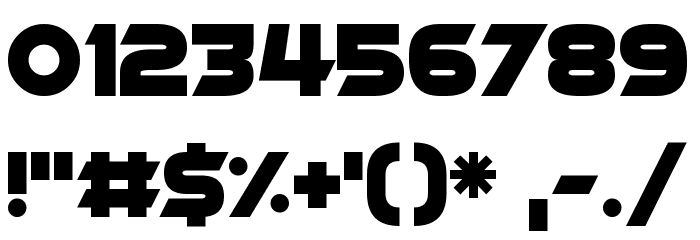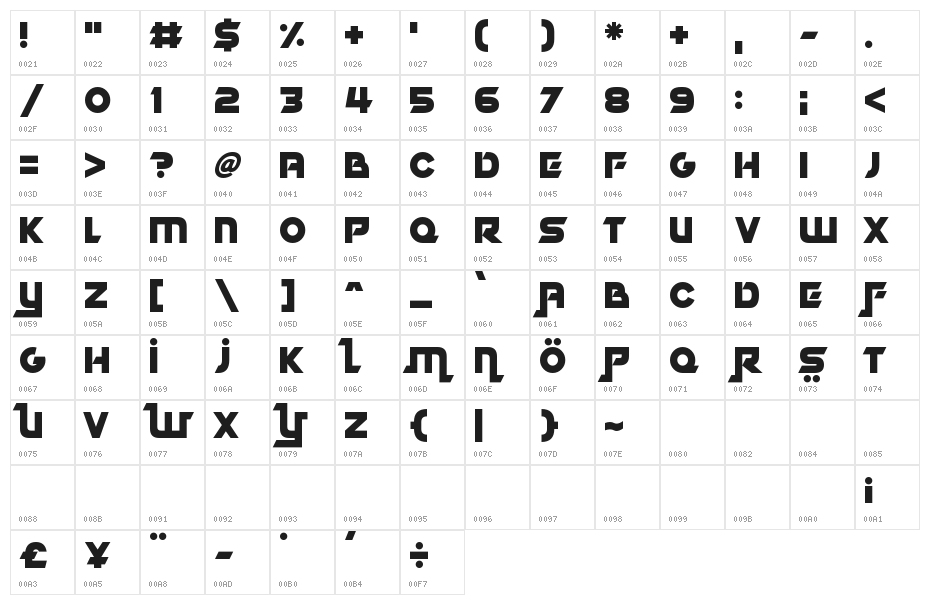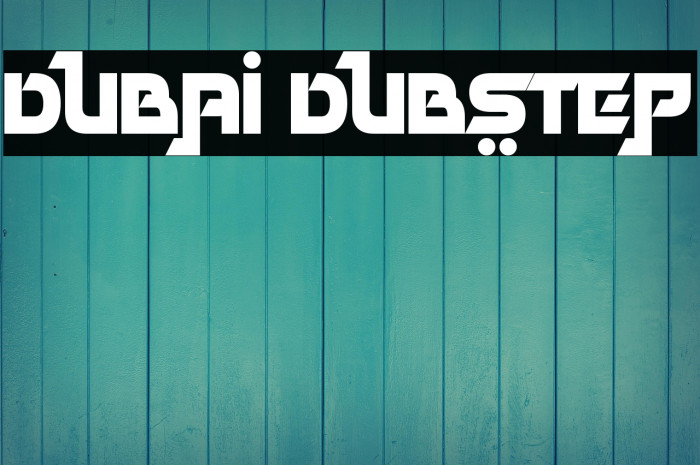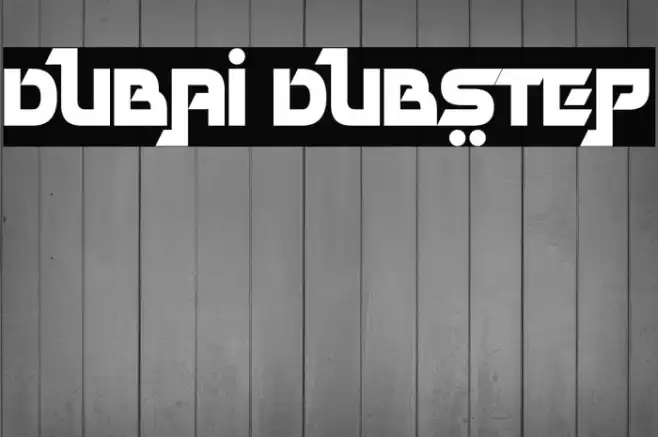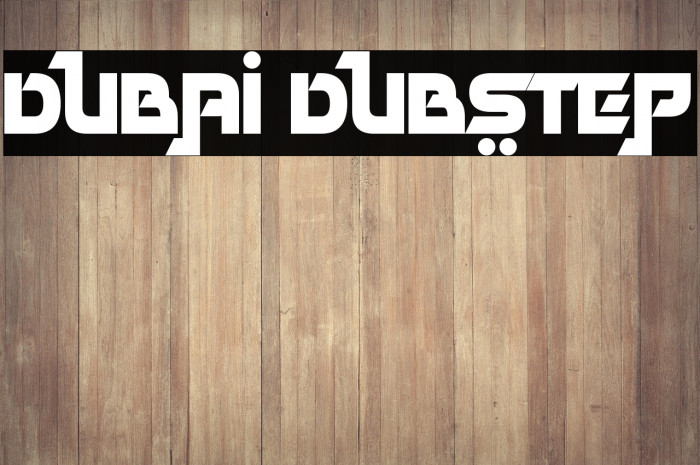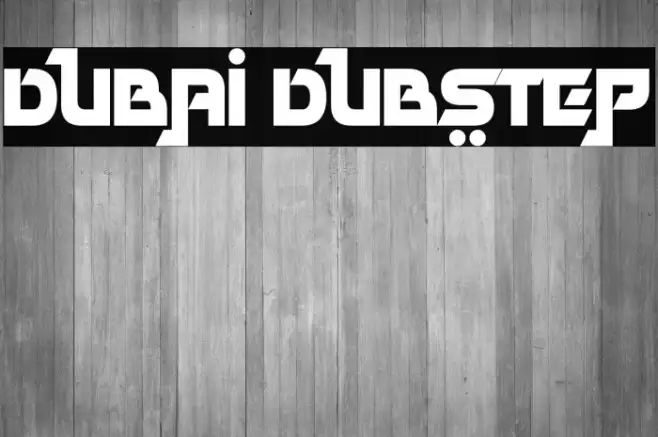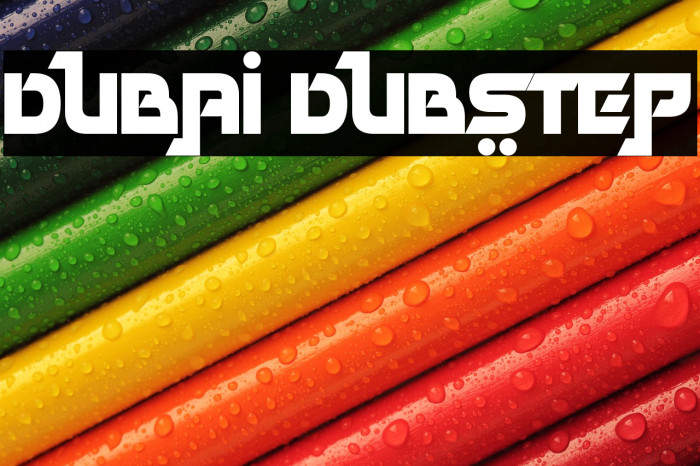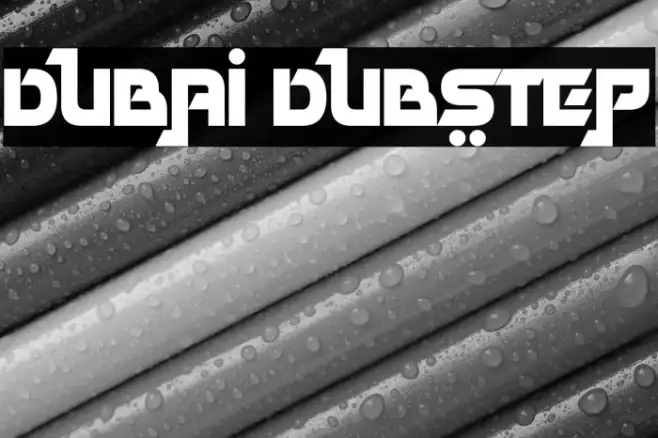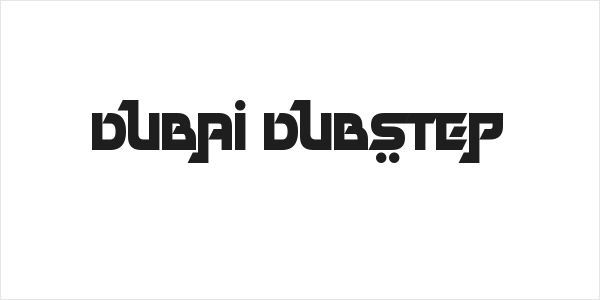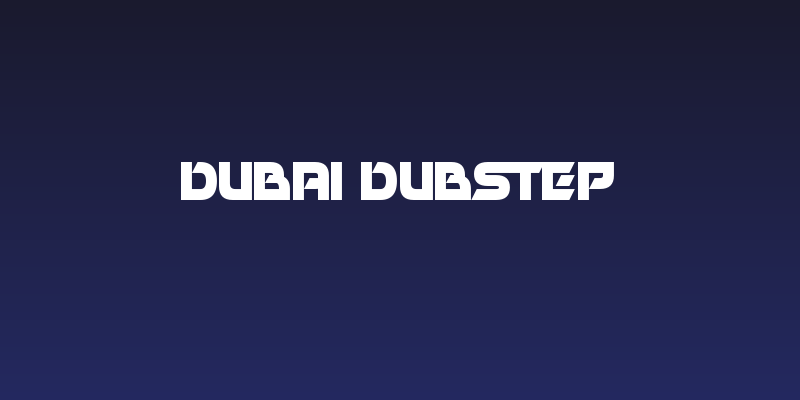
Dubai Dubstep Font
Dubai Dubstep Description
This font features a bold and futuristic design with geometric elements and sharp angles. The characters are constructed with a strong emphasis on horizontal and vertical lines, creating a sense of movement and energy. The uppercase and lowercase letters maintain a consistent style, with unique cuts and edges that give the font a distinct, modern appearance. Numbers and special characters are designed to match the boldness and angularity of the alphabet, ensuring a cohesive look across all text elements.
| Proposed Projects | Ideal for technology branding, music festival posters, video game titles, and modern advertising campaigns. |